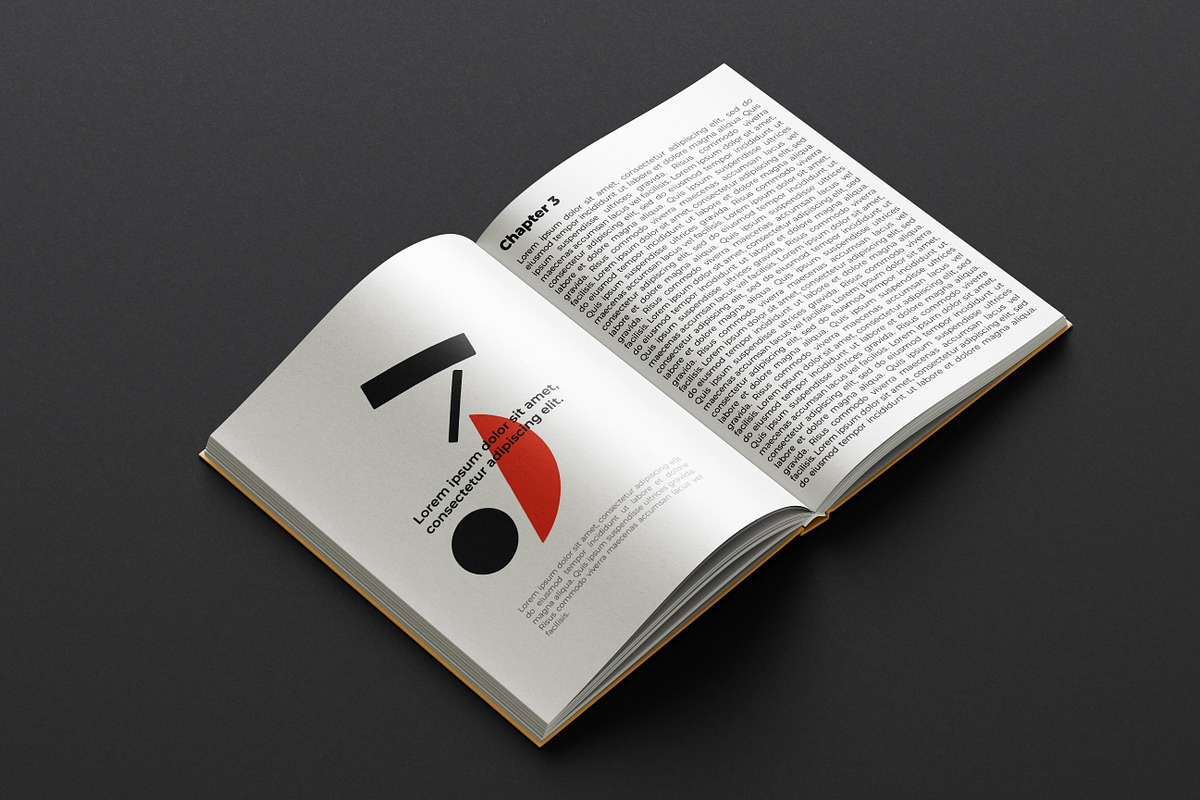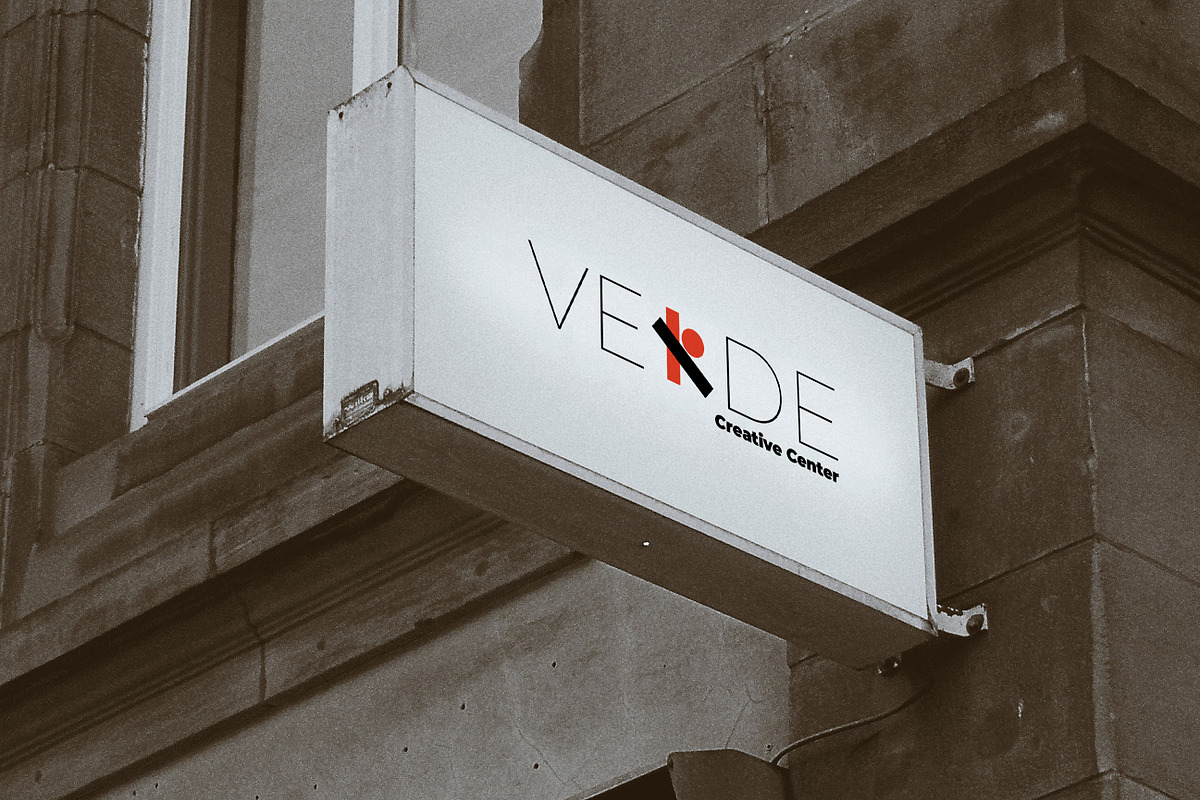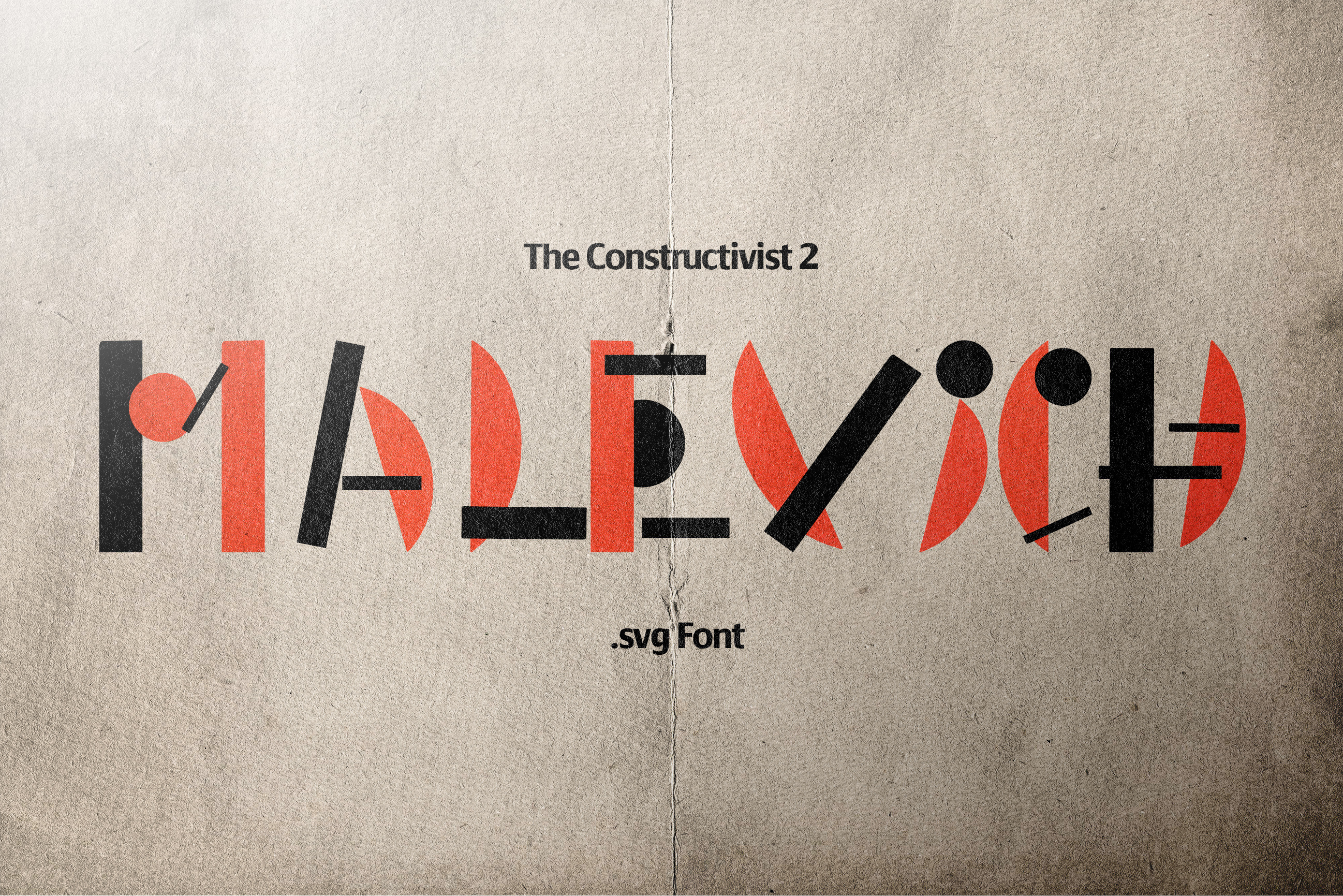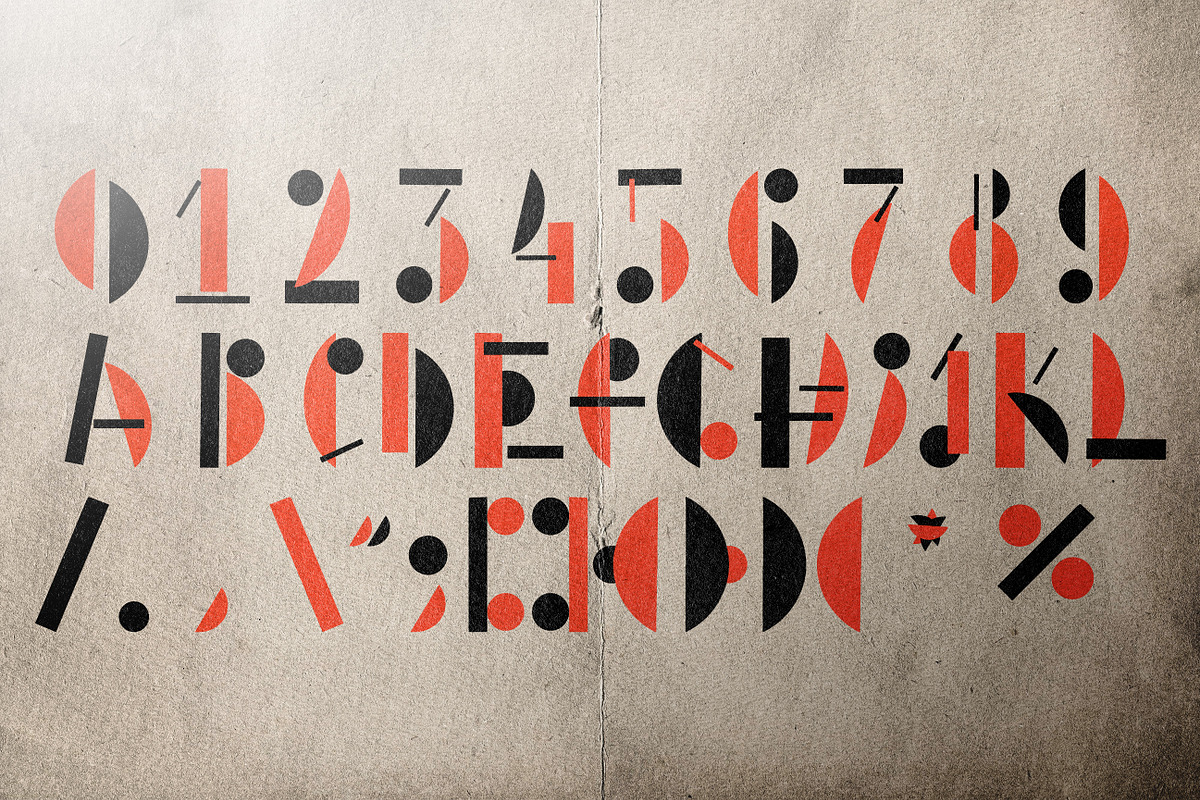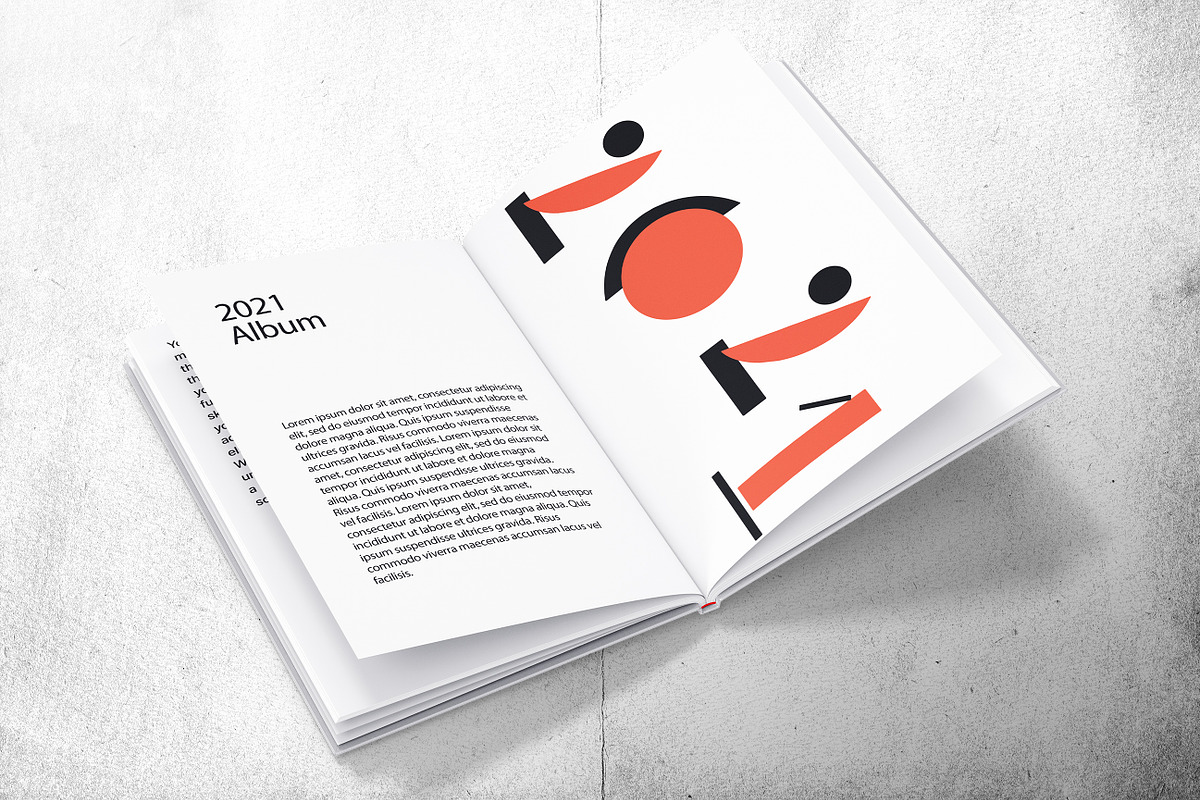
Malevich - The Constructivist Font#2
Font #2 of The Constructivist Collection.
The font is named in honor of Kazimir Malevich, the founder of the artistic and philosophical school of Suprematism, and his ideas about forms and meaning in art would eventually constitute the theoretical underpinnings of non-objective, or abstract, art. Malevich worked in a variety of styles, but his most important and famous works concentrated on the exploration of pure geometric forms (squares, triangles, and circles) and their relationships to each other and within the pictorial space. Because of his contacts in the West, Malevich was able to transmit his ideas about painting to his fellow artists in Europe and the United States, thus profoundly influencing the evolution of modern art.